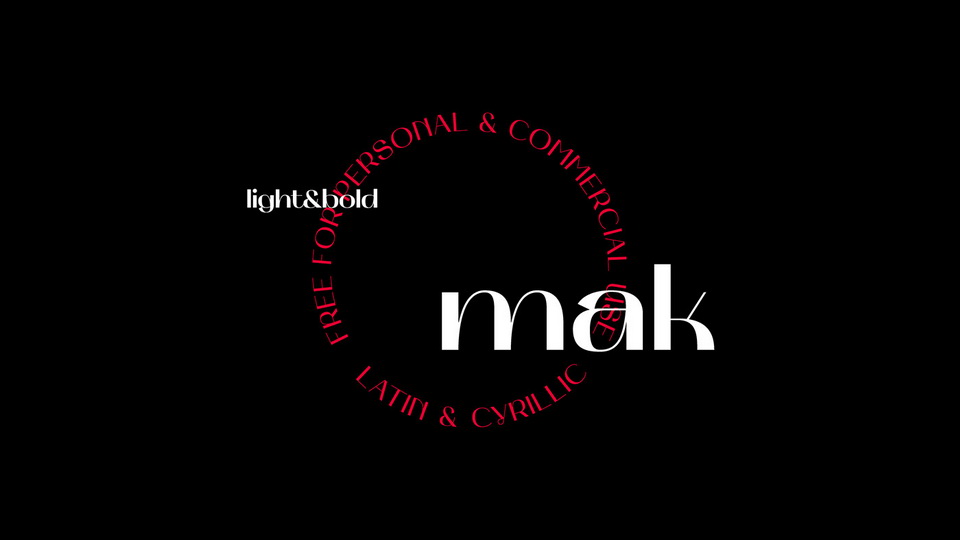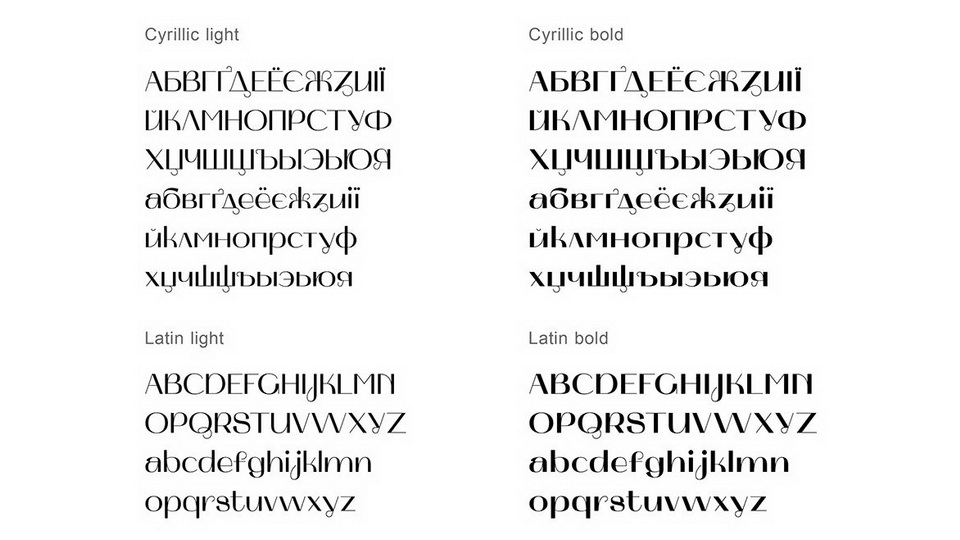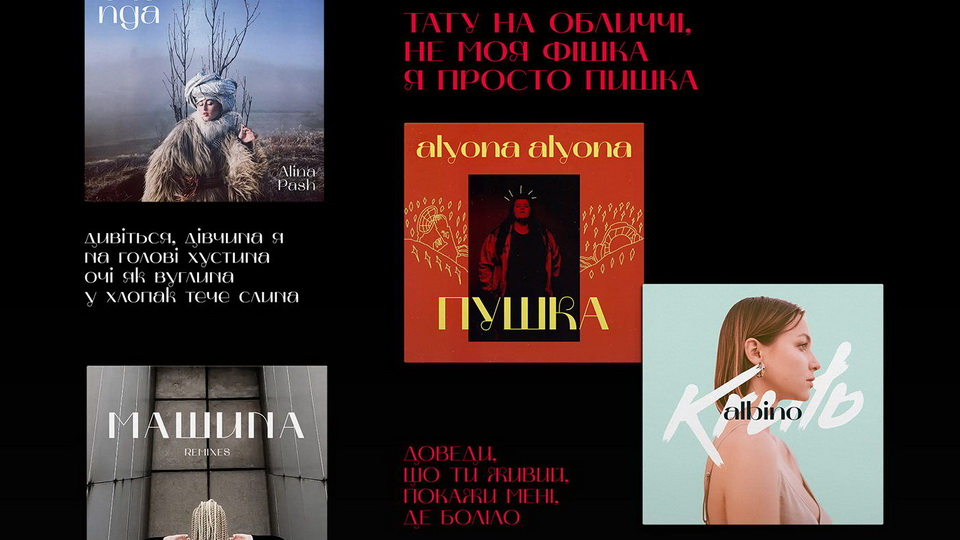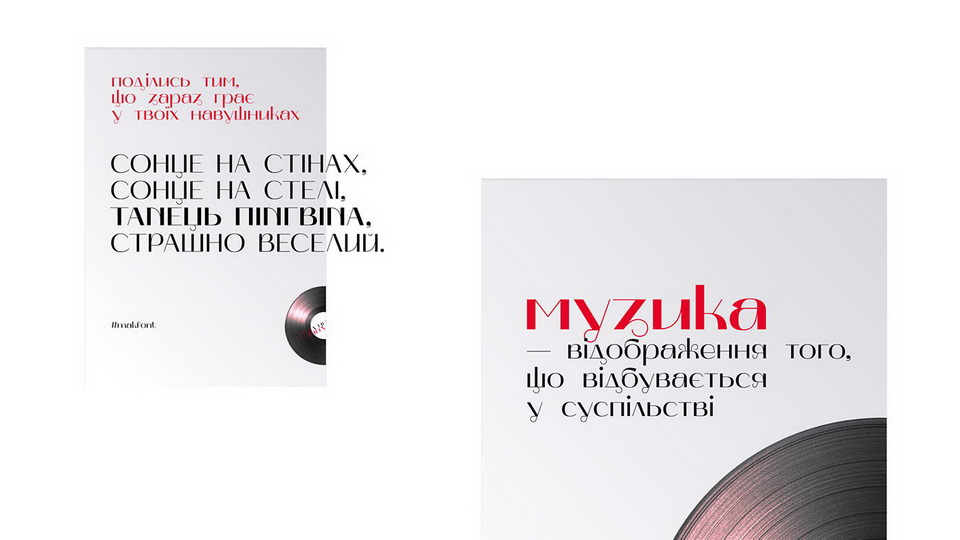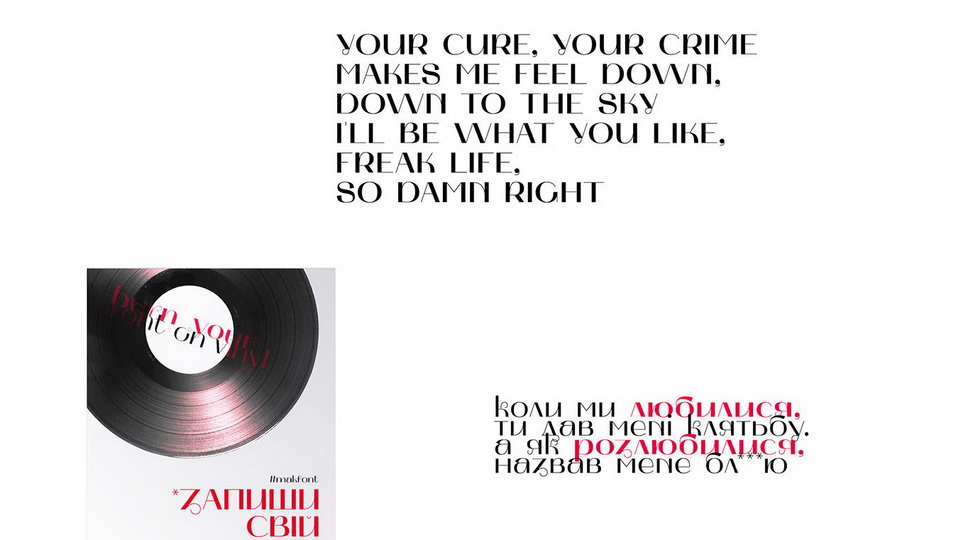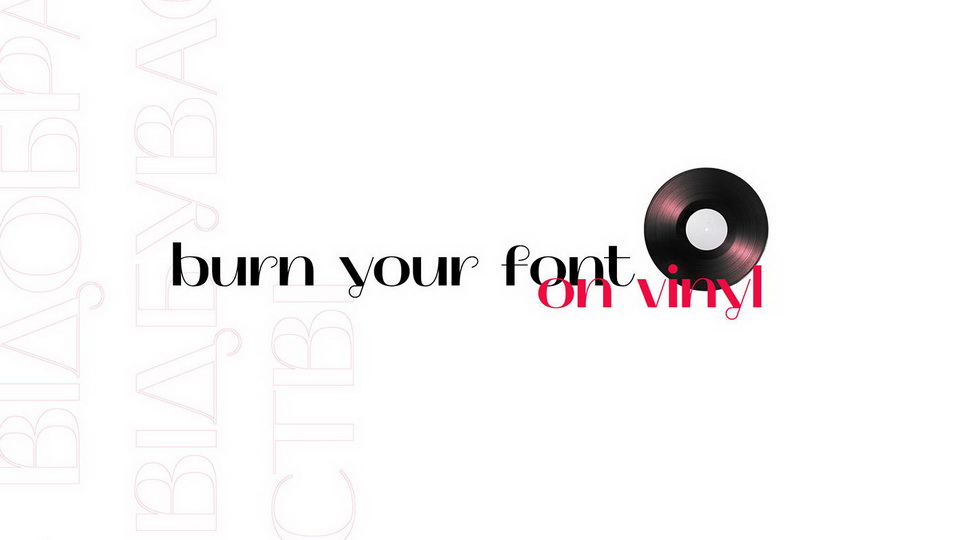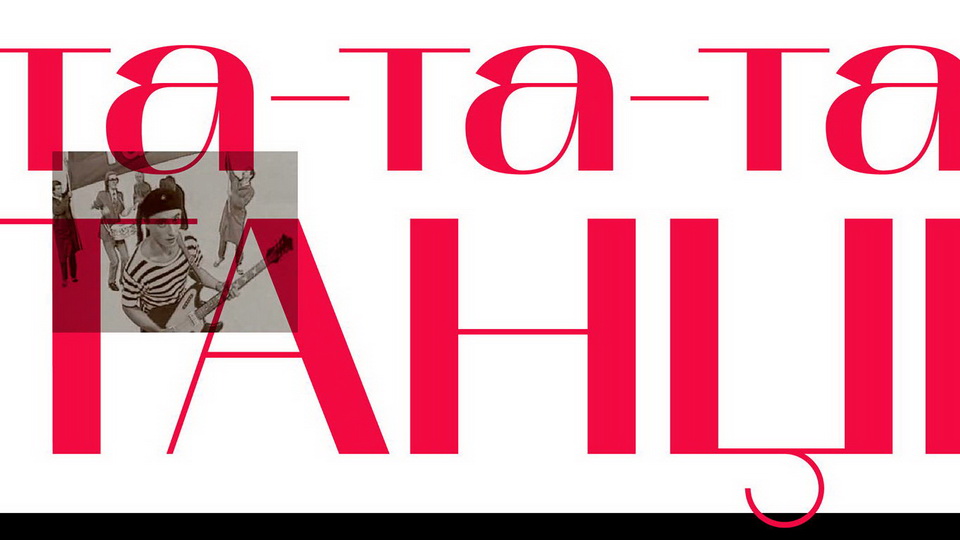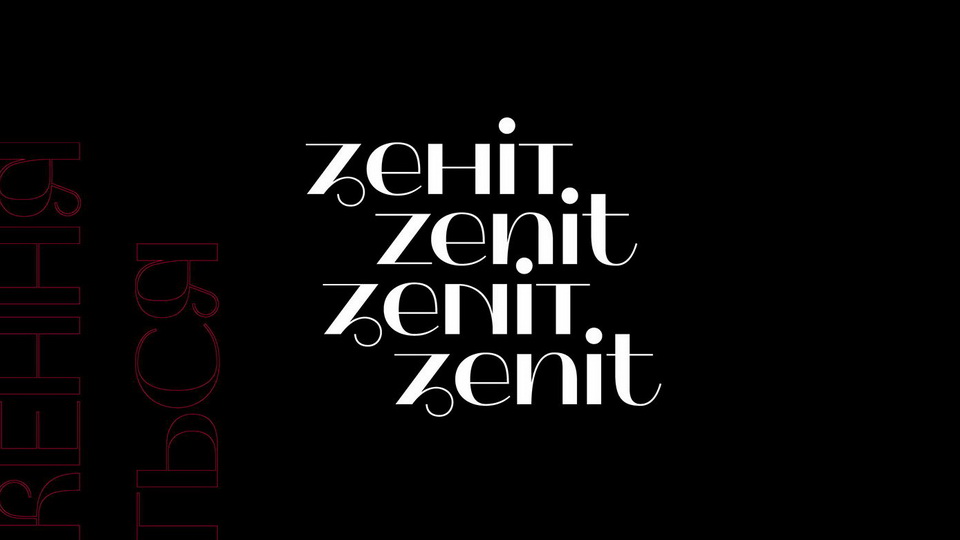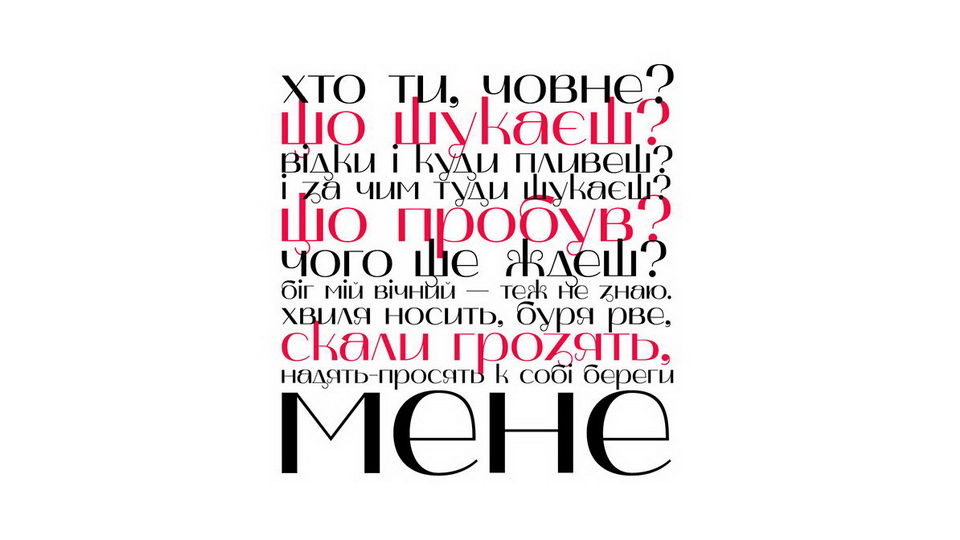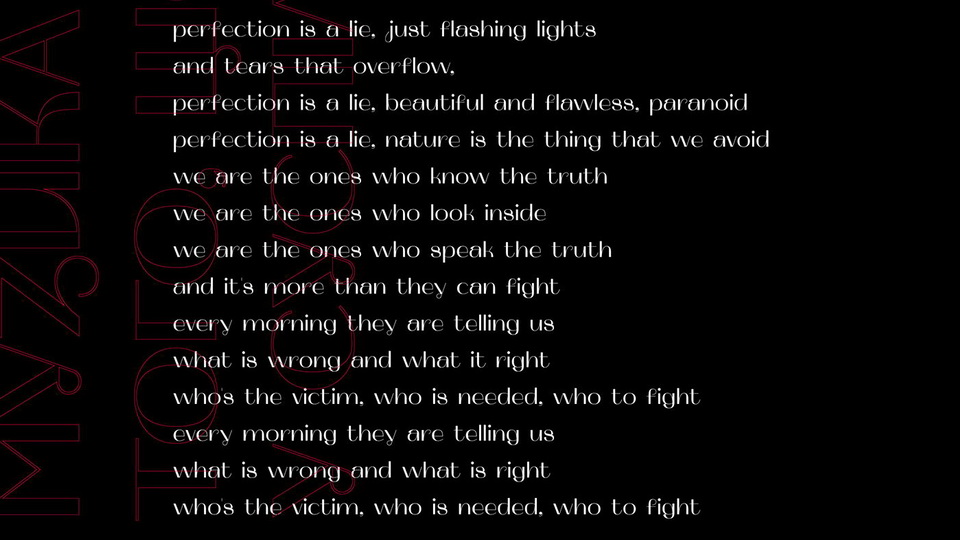
Mak is an experimental contrast typeface, inspired by Ukrainian underground music with the modern experimental sound of folk motifs. Lovely Ukrainian music projects as a YUKO, ONUKA, Alina Pash, Dakha Brakha, Khayat like amazing designers do something unbelievable with music using experiments with folk ethno. Such experiments became the basis for the new font. But this basis does not restrict the use of a typeface in the current theme (:
For Cyrillic, usually normal that a lot of signs have limited to a height of lowercase letters it doesn’t have ascender height. Therefore the words othen merge into a pile. So the typeface has ascenders for some characters where it will look familiar enough.
The general style of Mak was made from experimental forms of Ukranian historical letters. The peculiarity of it was rounded entry points of lobes into vertical strokes which in Mak has united with rectangular entry points. All this things translate to Latin characters that adopt a unique style that was created.